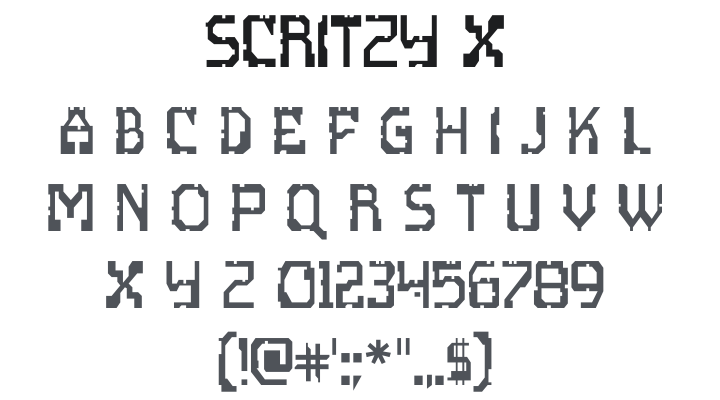
Scritzy X Font
About Scritzy X
Scritzy X is a bold, square pixel-grid display typeface where every letterform appears assembled from mismatched robot components — chunky modular blocks with notched corners, jagged cuts, and mechanical gaps that give each character a cobbled-together, industrial junkyard feel. The irregular internal cutouts make it look like circuit board fragments bolted into letter shapes. Perfect for sci-fi game titles, robotics branding, cyberpunk posters, and any headline needing raw, mechanical assembly-line attitude.